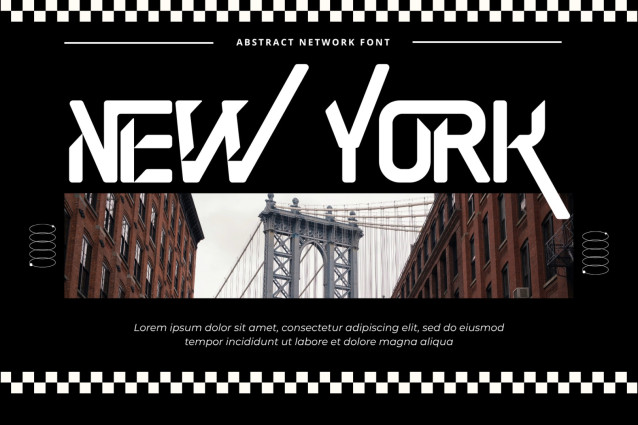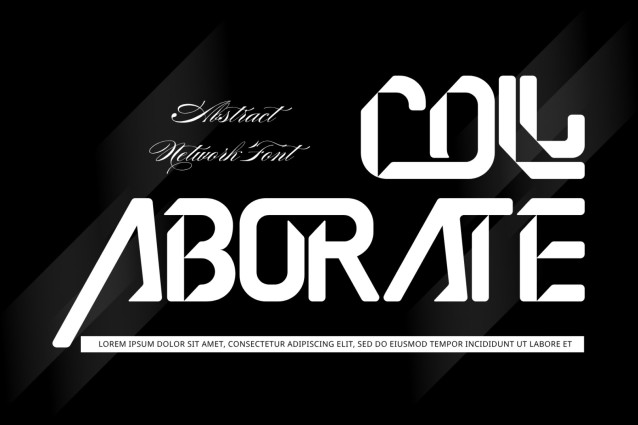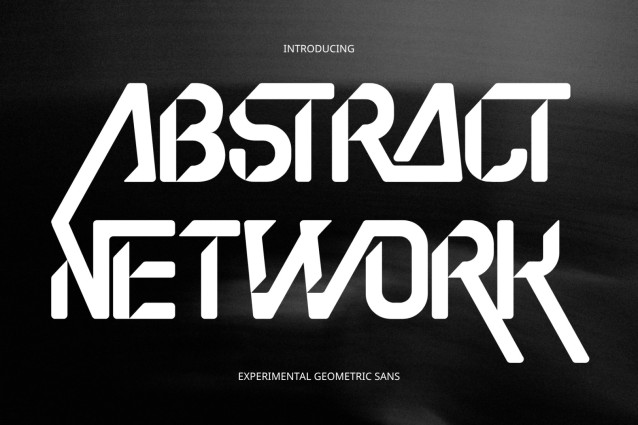
Abstract Network – Futuristic Font
Abstract Network – Futuristic Font – Geometric Folded Ribbon & Origami Cybertech Display Font, a striking geometric techno display font inspired by origami paper folds, architectural ribbon structures, and high-tech cybernetics. Defined by its precise 45-degree angular bevels, stencil-style overlapping slashes, and sharp dimensional folds, this typeface turns standard headlines into complex, 3D ribbon logotypes.
Engineered with dramatic extended framing strokes—such as sweeping enclosure lines and long diagonal tail extensions—Abstract Network creates instant visual rhythm and structural authority. It is the definitive display font for AI and crypto branding, gaming logotypes, cyberpunk posters, architectural exhibitions, techwear apparel, and futuristic album covers.